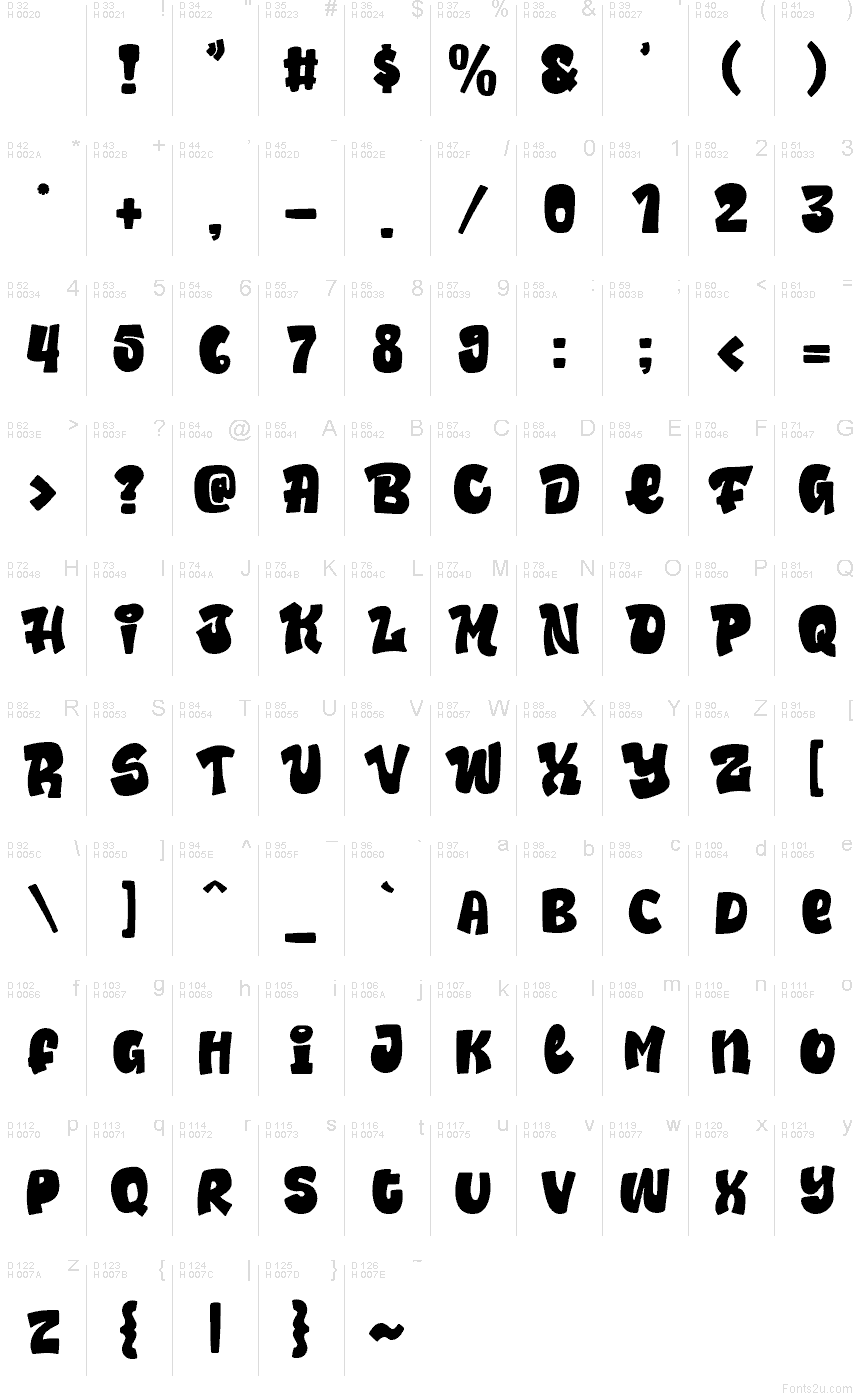
Summer Days Regular
Summer Days font by DM Letter Studio - Dimas Prasetyo is a free cartoon display typeface that feels like bold lettering splashed across a beach boardwalk sign. The chunky, rounded shapes look hand-painted and slightly wobbly in a fun way, like letters drawn with a fat marker on sun-faded paper. Its tight, bubbly rhythm and inky black forms give every word a loud, friendly shout that grabs attention without feeling harsh.
Using Summer Days, your titles instantly feel sunny, playful, and a bit mischievous, making this free font a natural fit for kids’ event posters, party invitations, ice-cream or snack packaging, YouTube thumbnails, social media graphics, and cheerful logo wordmarks. It holds its personality best at larger sizes, where the curves can really breathe; pair it with a clean rounded sans for smaller supporting text to keep the overall look bright and readable.